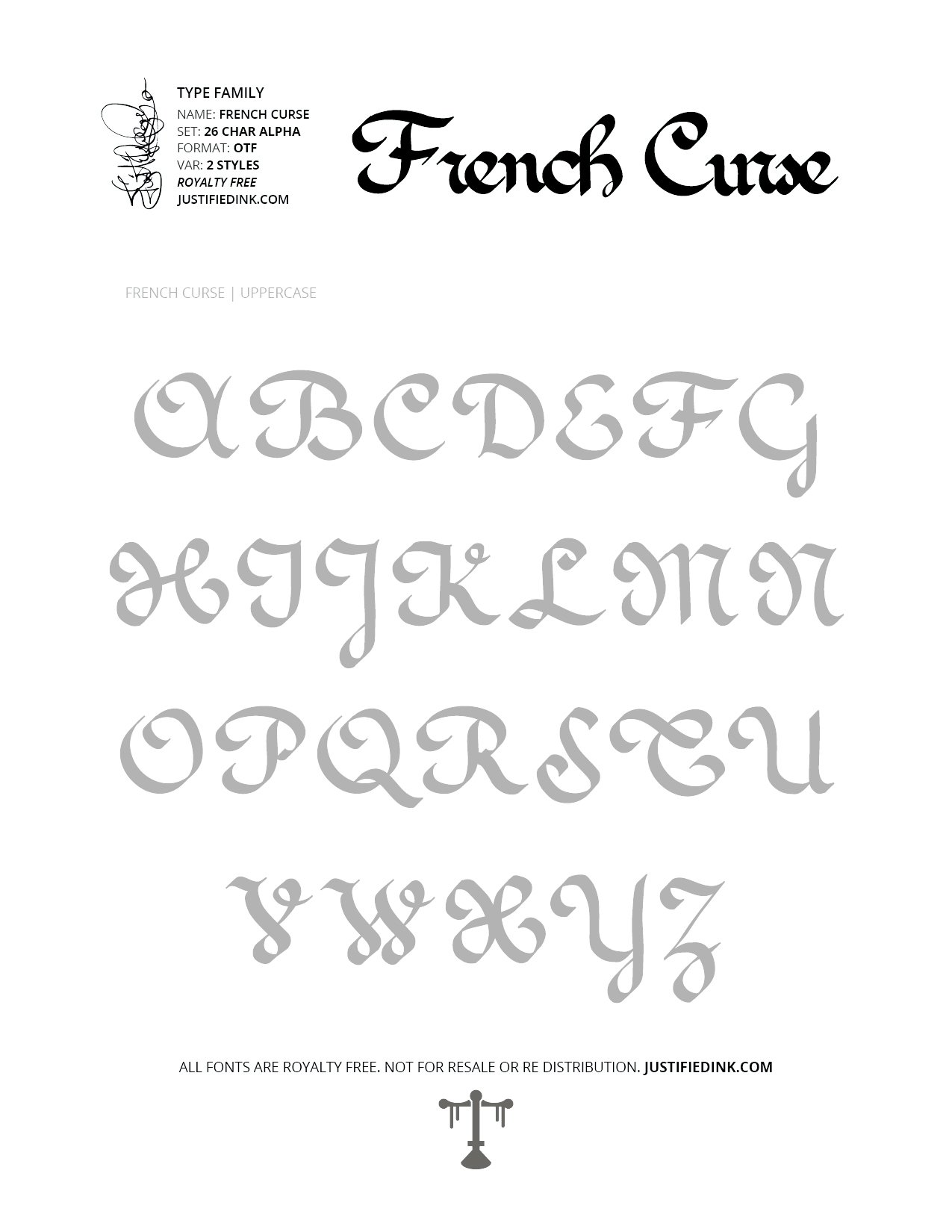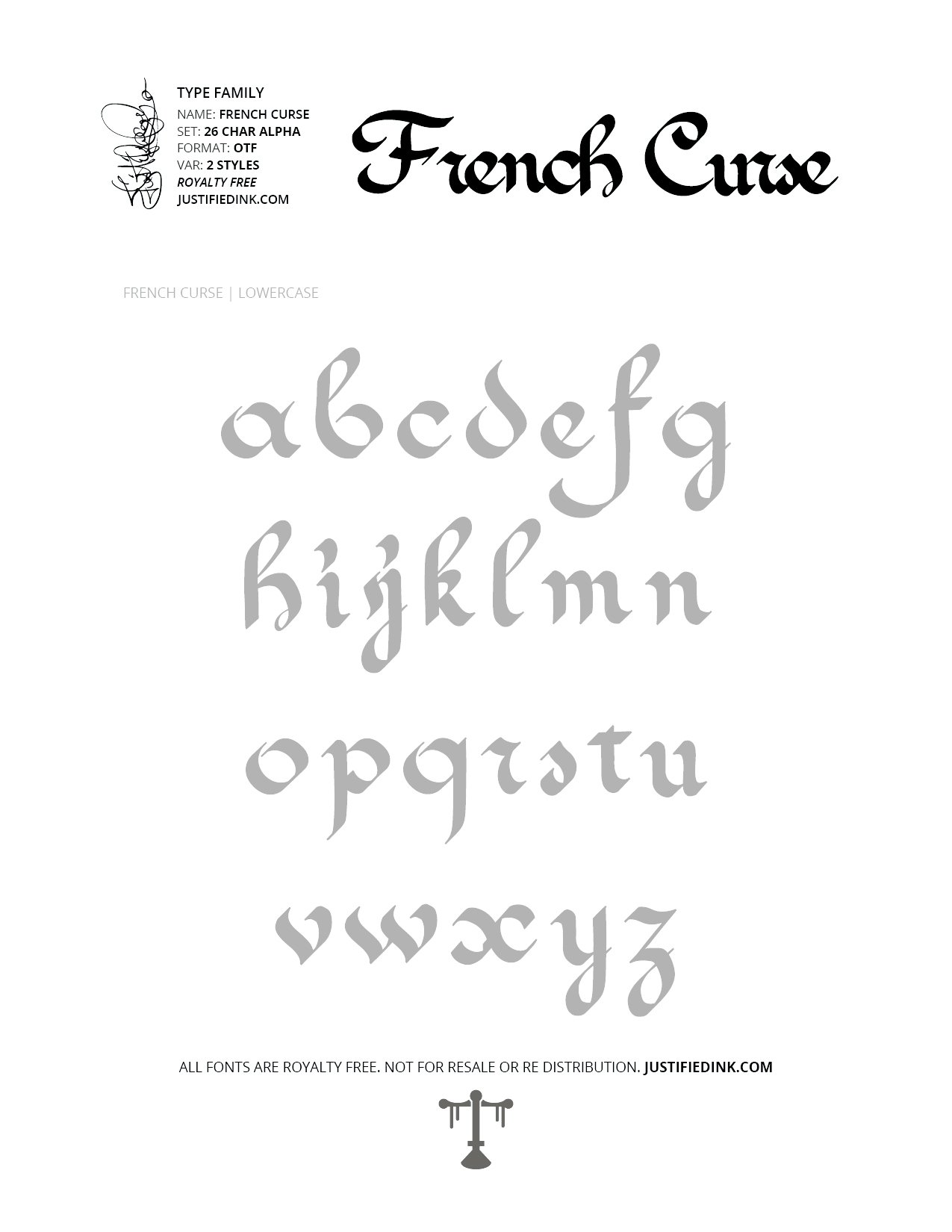
French Curse (2 styles) - Custom Font by Justified Ink
NAME: French Curse
Royalty and loyalty are the founding principals of French Curse. In continuation of the rich bloodline which is cursive writing, this pays tribute to the classic French style.